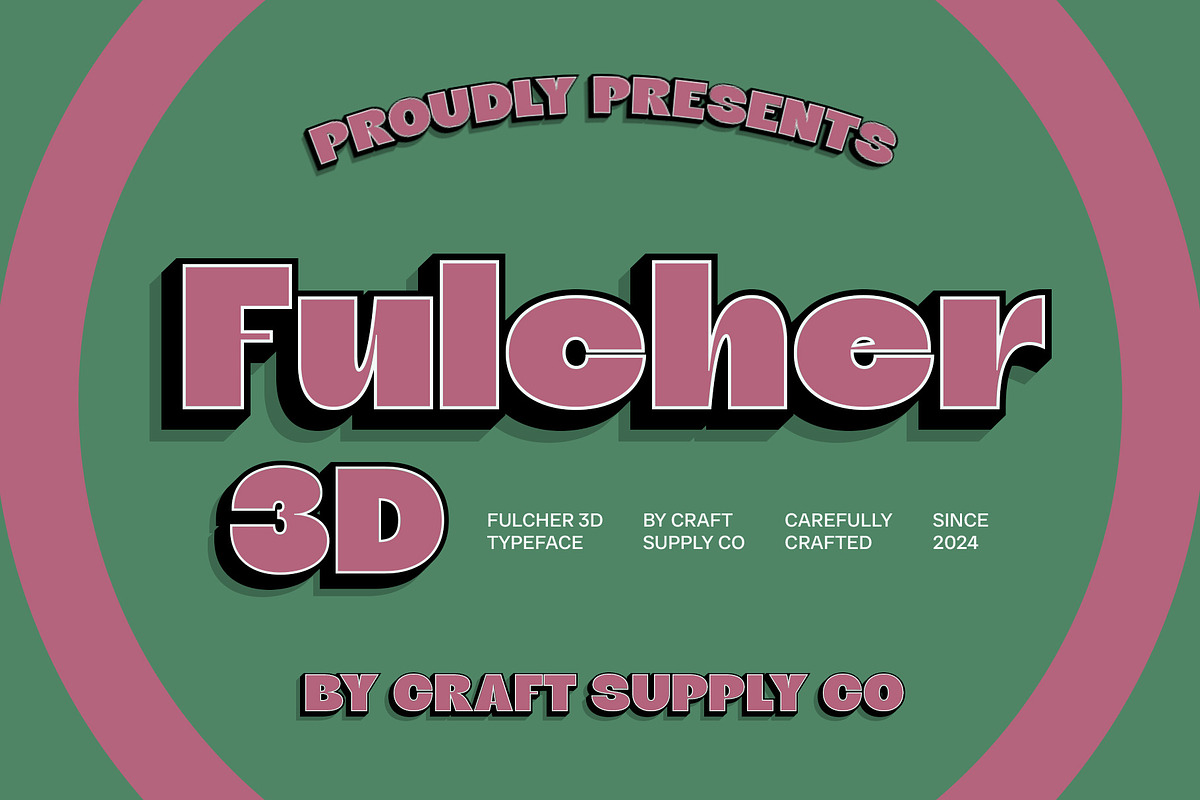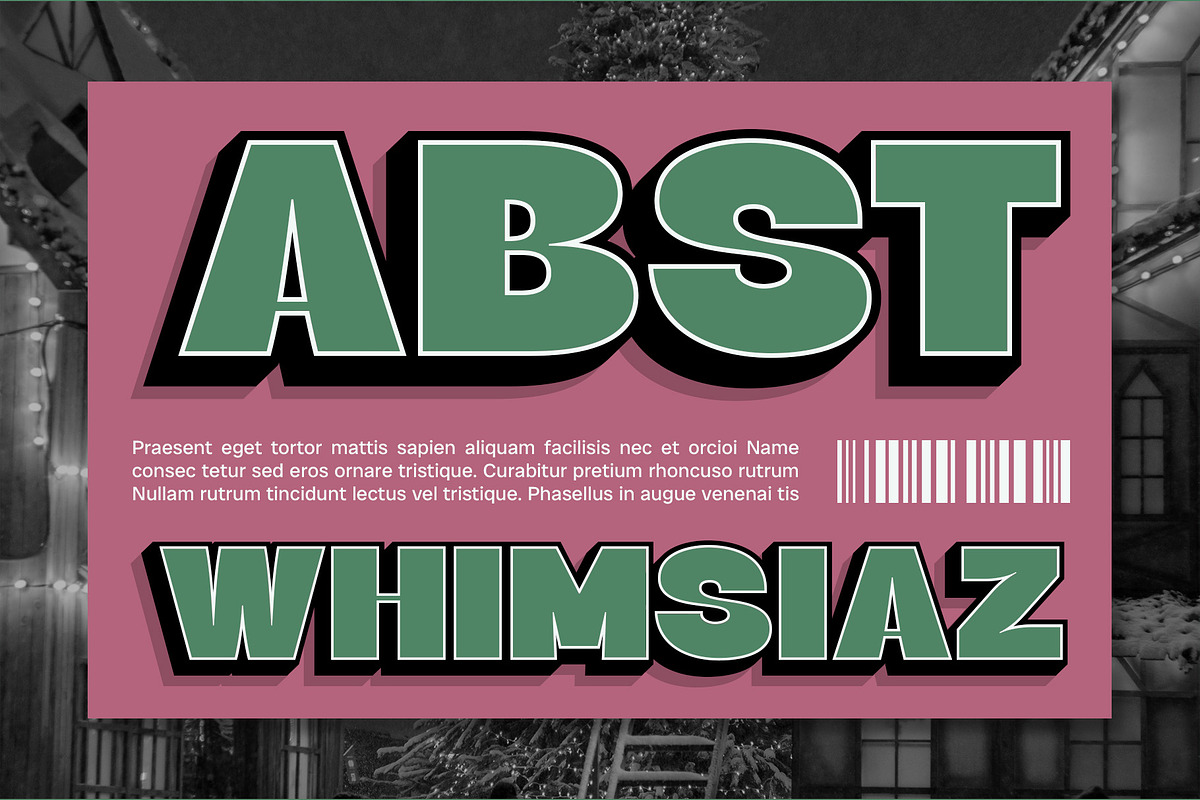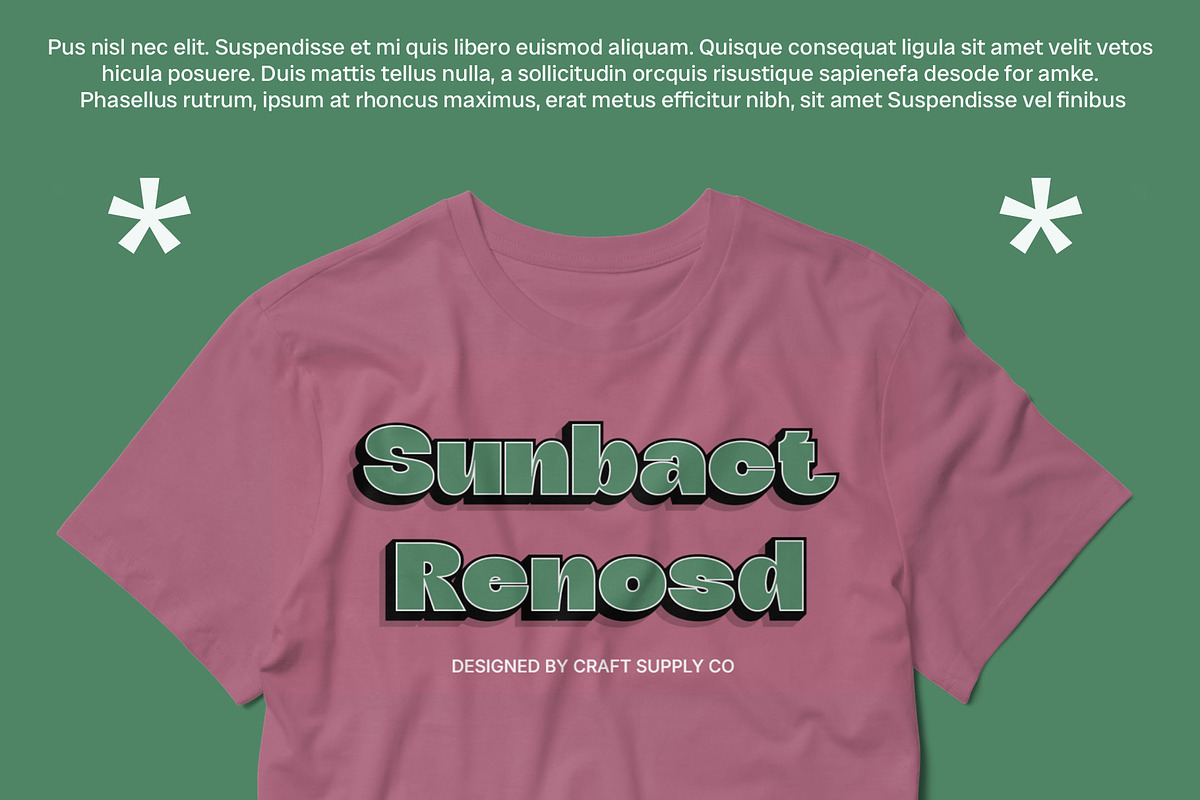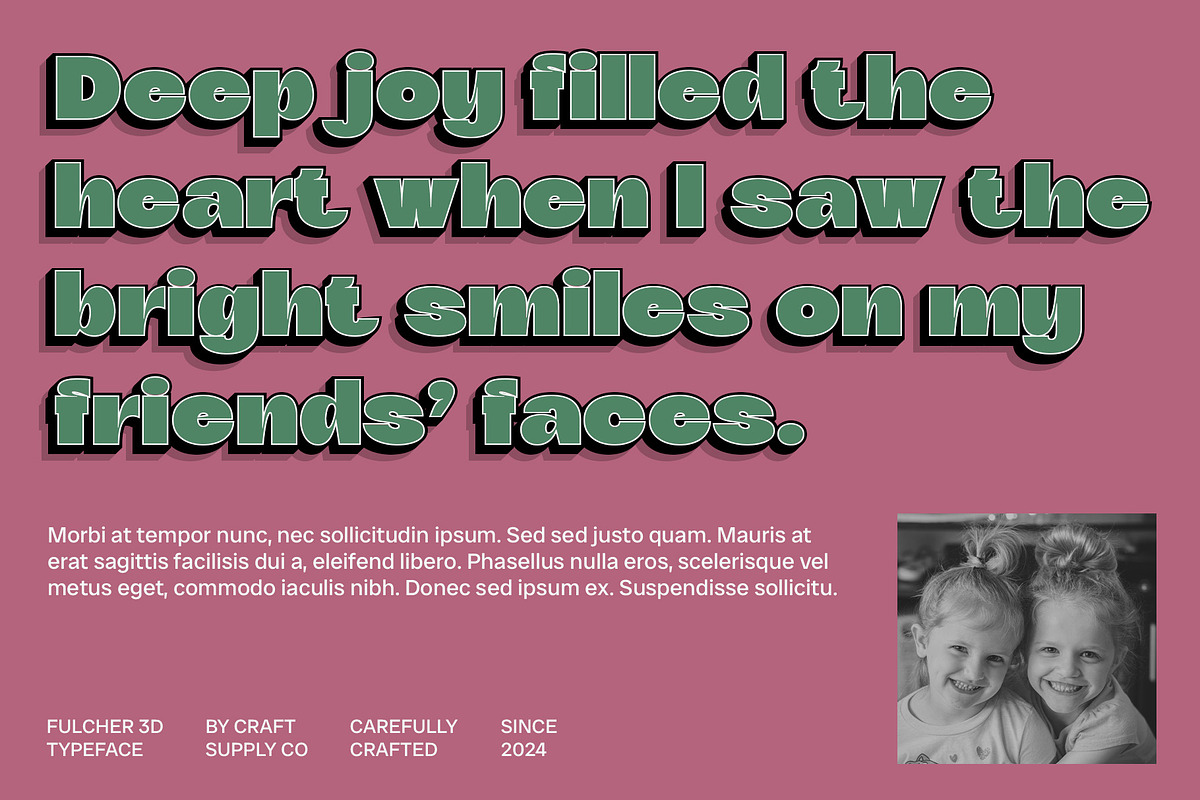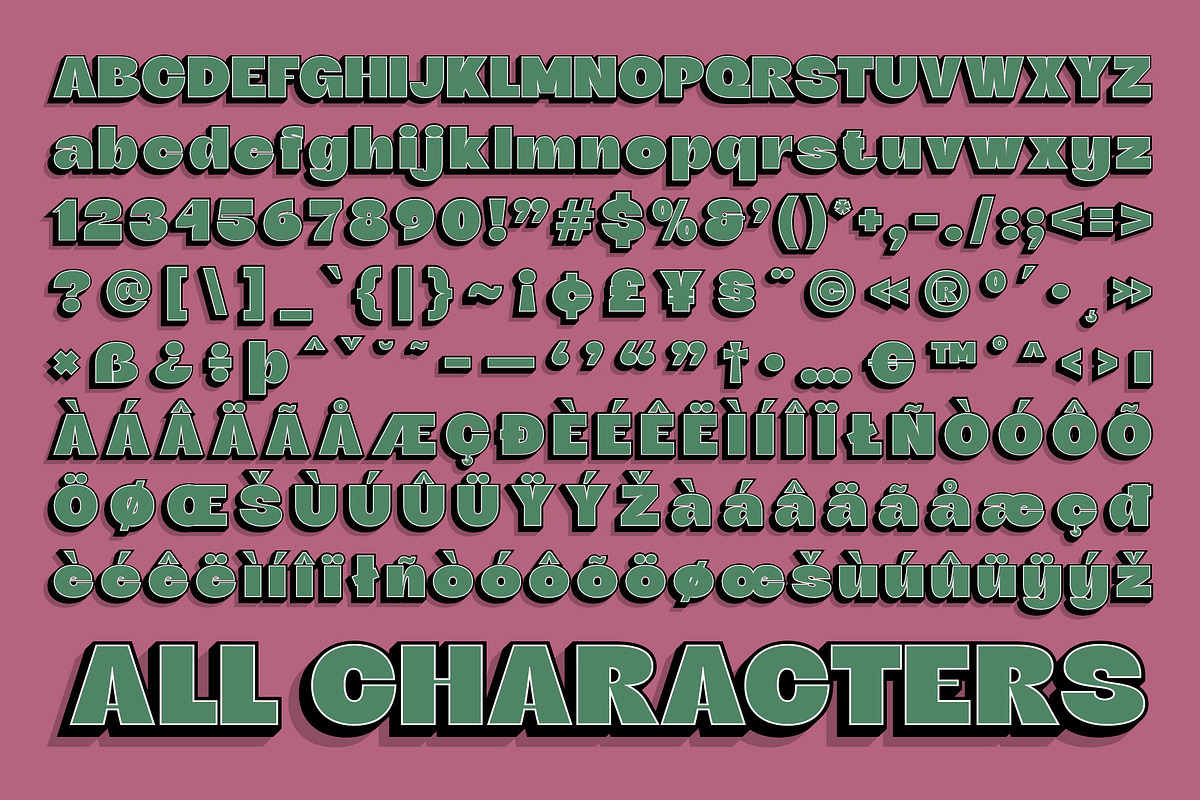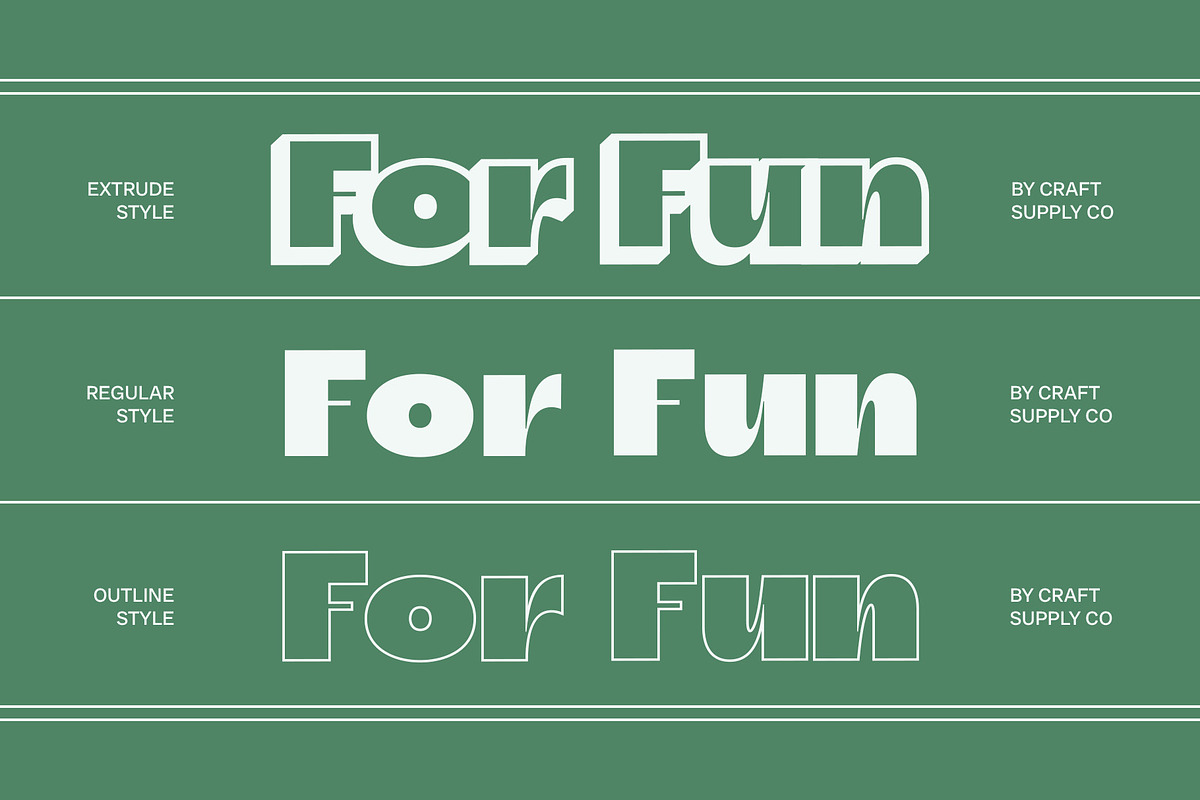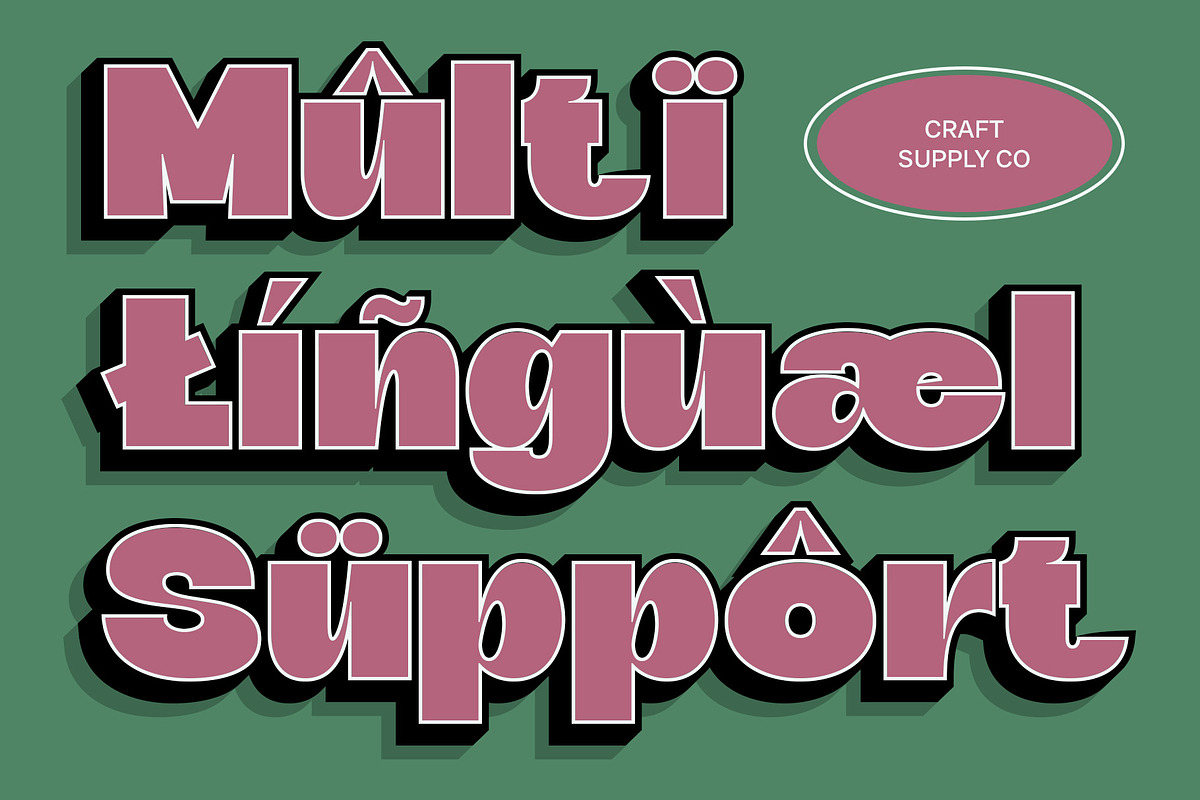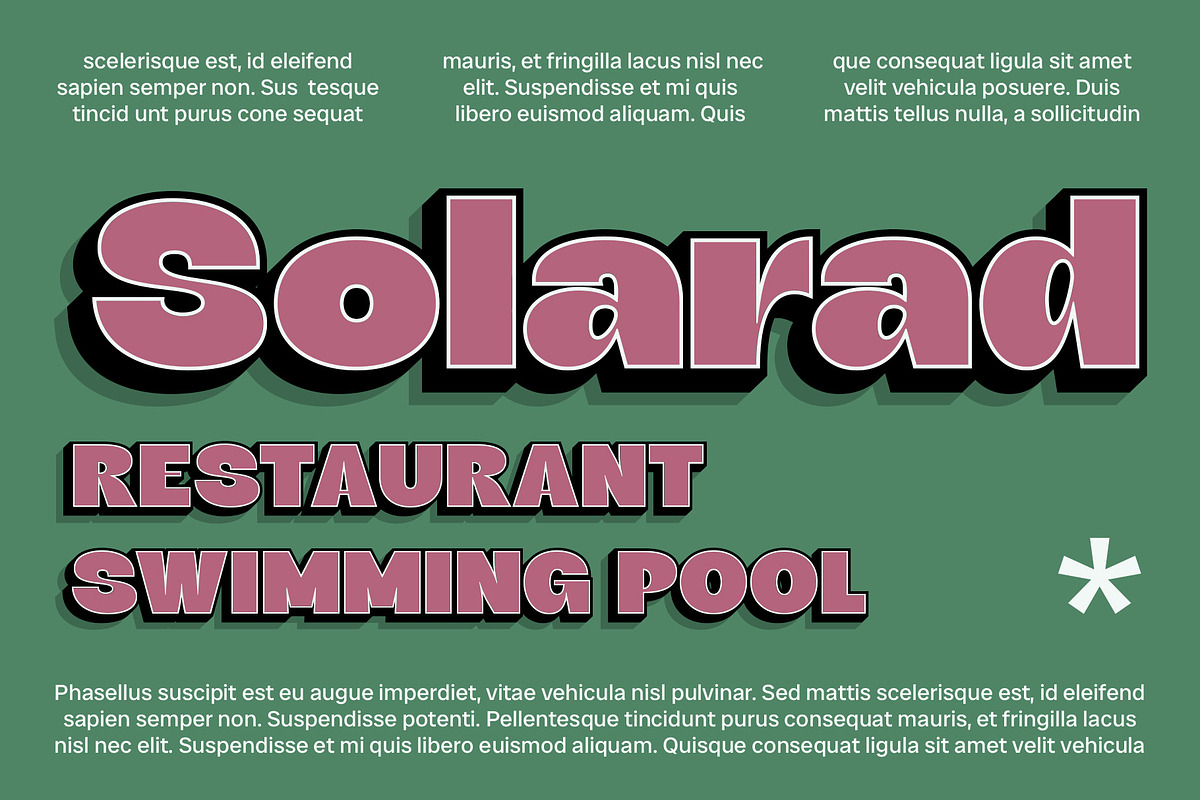
Fulcher 3D
Fulcher 3D Font: Boldness with a Funky Flair
Bold Sans-Serif with 3D Effect Fulcher 3D is a striking bold sans-serif font that merges a daring, funky vibe with a modern 3D effect. Its robust, solid letterforms are enhanced by three-dimensional elements, creating a dynamic and engaging appearance that captures attention and adds a vibrant touch to any design.
Energetic and Attention-Grabbing Design The 3D effect in Fulcher 3D introduces depth and dimensionality to the text, making it seem as though it’s leaping off the surface. This visual depth not only adds to the font’s energetic character but also ensures that your message is both eye-catching and memorable, making a powerful impact in any visual medium.
Perfect for Statement-Making Designs Whether used in posters, packaging, or branding, Fulcher 3D excels in projects that aim to stand out and make a bold statement. Its combination of bold shapes and funky 3D effects delivers a fresh, innovative edge, ideal for designs that seek to convey creativity and modern flair. Perfect for projects that demand a distinctive and lively appearance, Fulcher 3D ensures your designs will captivate and engage audiences with its unique style.
- Fulcher Regular
- Fulcher Outline
- Fulcher Extrude Right
- Fulcher Extrude Left